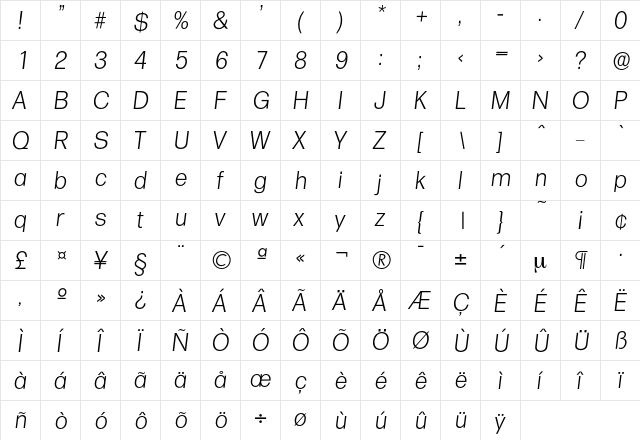
Formula-LightIta Regular Font Preview
Formula-LightIta Regular
Design Context for Formula-LightIta Typeface
Formula-LightIta is a composed and adaptable typeface that performs quietly and consistently across a wide range of design contexts. The delicate stroke weight brings airiness and refinement to layouts.